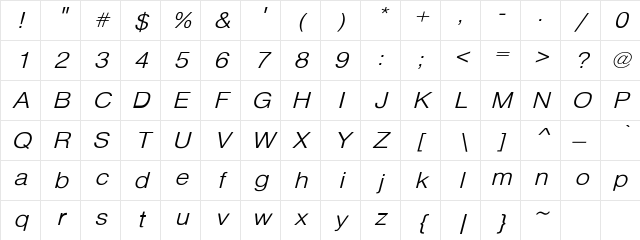
Bern Expanded Oblique 2 Regular Free Font
Bern Expanded Oblique 2 Regular
Design Context for Bern Expanded Oblique 2
Bern Expanded Oblique 2 is a composed and adaptable typeface that performs quietly and consistently across a wide range of design contexts. The slanted form adds forward momentum and visual energy.
Pro Tip: Use Bern Expanded Oblique 2 for emphasis, pull quotes, and subheadings where its slanted energy can add rhythm to the layout.